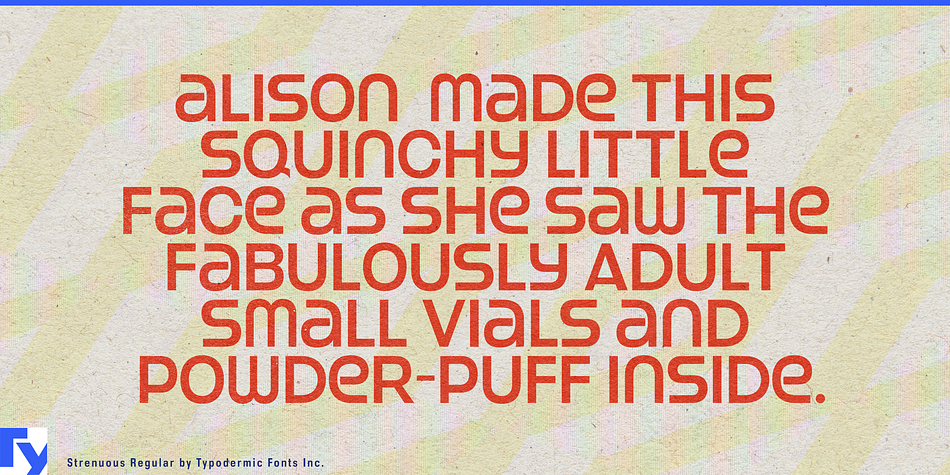
Strenuous
Strenuous is a display, grunge and display sans font family. This typeface has eighteen styles and was published by Typodermic Fonts Inc.
Hey there, font fanatics. Feeling like your messages are falling flat and lacking some serious funk? Well, we’ve got just the typeface to turn that frown upside down! Introducing Strenuous, the unicase headline typeface with a fashion groove that’s sure to transport you straight back to the ‘1970s.
But wait, there’s more! Strenuous isn’t just any old boring typeface—oh no. This baby is unique, distinctive, and funky. And with alternative uppercase and lowercase versions for some letters, you can mix things up and keep things interesting.
And don’t even get us started on the eight weights and italics—this typeface is truly versatile and can handle anything you throw its way. So go ahead and give your message the voice it deserves with Strenuous. Your audience will thank you for the groovy vibes.